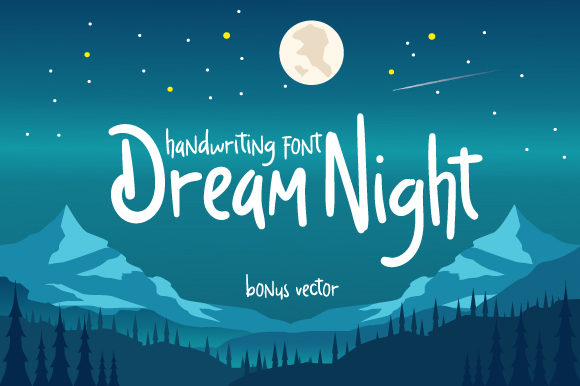
Immerse yourself in the enchanting realm of Dream Night Font, a script font that embodies the essence of elegance and sophistication. Crafted by the skilled hands of EKNOJI, this font transcends the boundaries of ordinary typography, inviting you on a journey of creativity and self-expression.
Step into a world where timeless elegance meets authentic calligraphy, where each letter dances across the page with a grace and poise that is simply breathtaking. Dream Night Font captures the essence of classicism, while simultaneously maintaining a sense of warmth and approachability.
With its meticulously designed curves and flourishes, Dream Night Font adds a touch of magic to any project. Whether you're creating wedding invitations, branding materials, or simply adding a personal touch to your digital designs, this font is sure to elevate your work to new heights.
Experience the versatility of Dream Night Font, a font that seamlessly adapts to a wide range of design styles. From vintage-inspired creations to modern and contemporary projects, Dream Night Font effortlessly blends in, adding a touch of refinement and sophistication wherever it goes.
Unleash your creativity and let your imagination soar as you explore the endless possibilities of Dream Night Font. Its intuitive design makes it easy to use, even for those without extensive design experience. Let the font guide you as you craft designs that are both visually stunning and emotionally resonant.
Dream Night Font is more than just a collection of letters; it's an expression of your unique style and personality. It's a font that speaks to the dreamer in you, encouraging you to embrace your creativity and make your mark on the world.